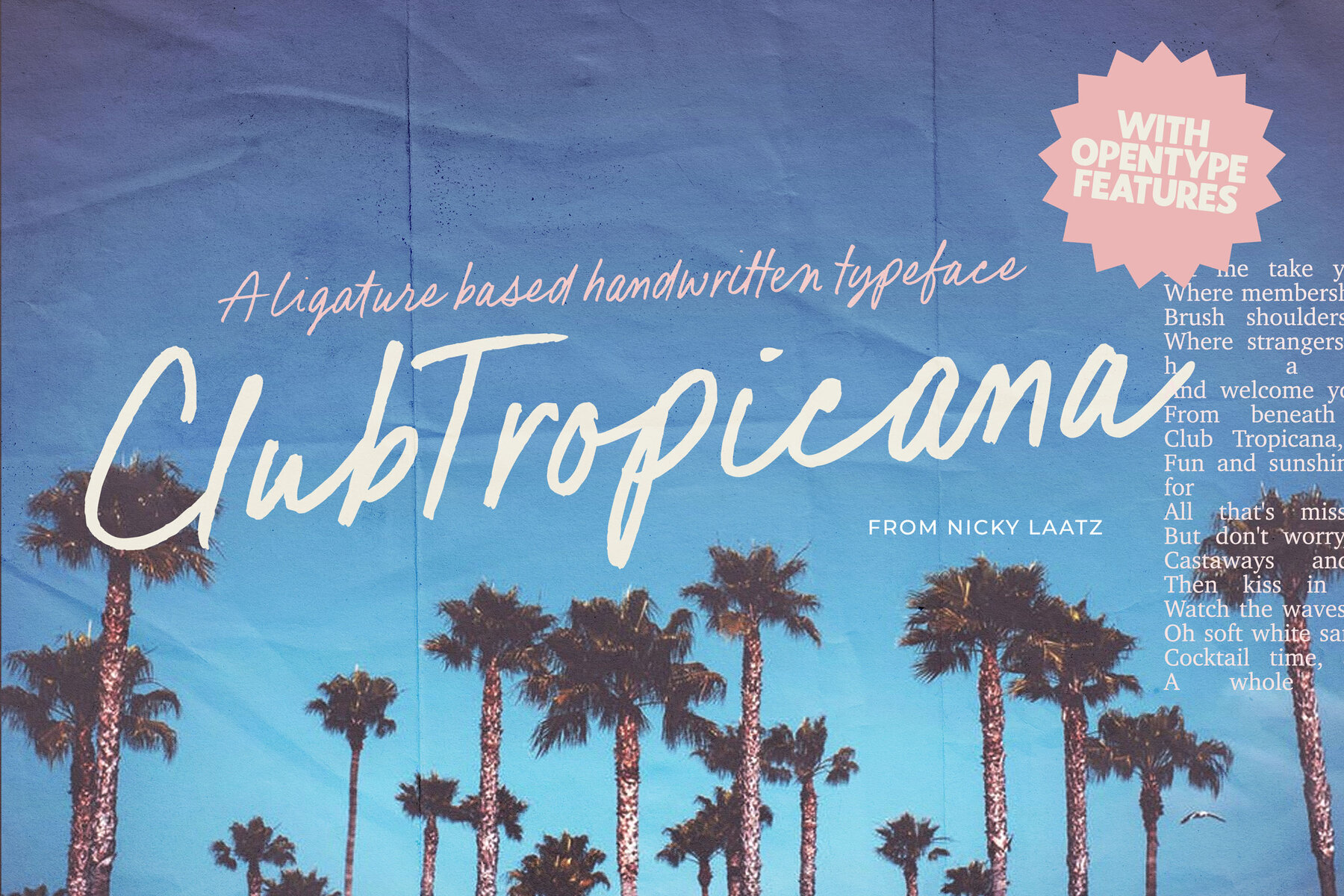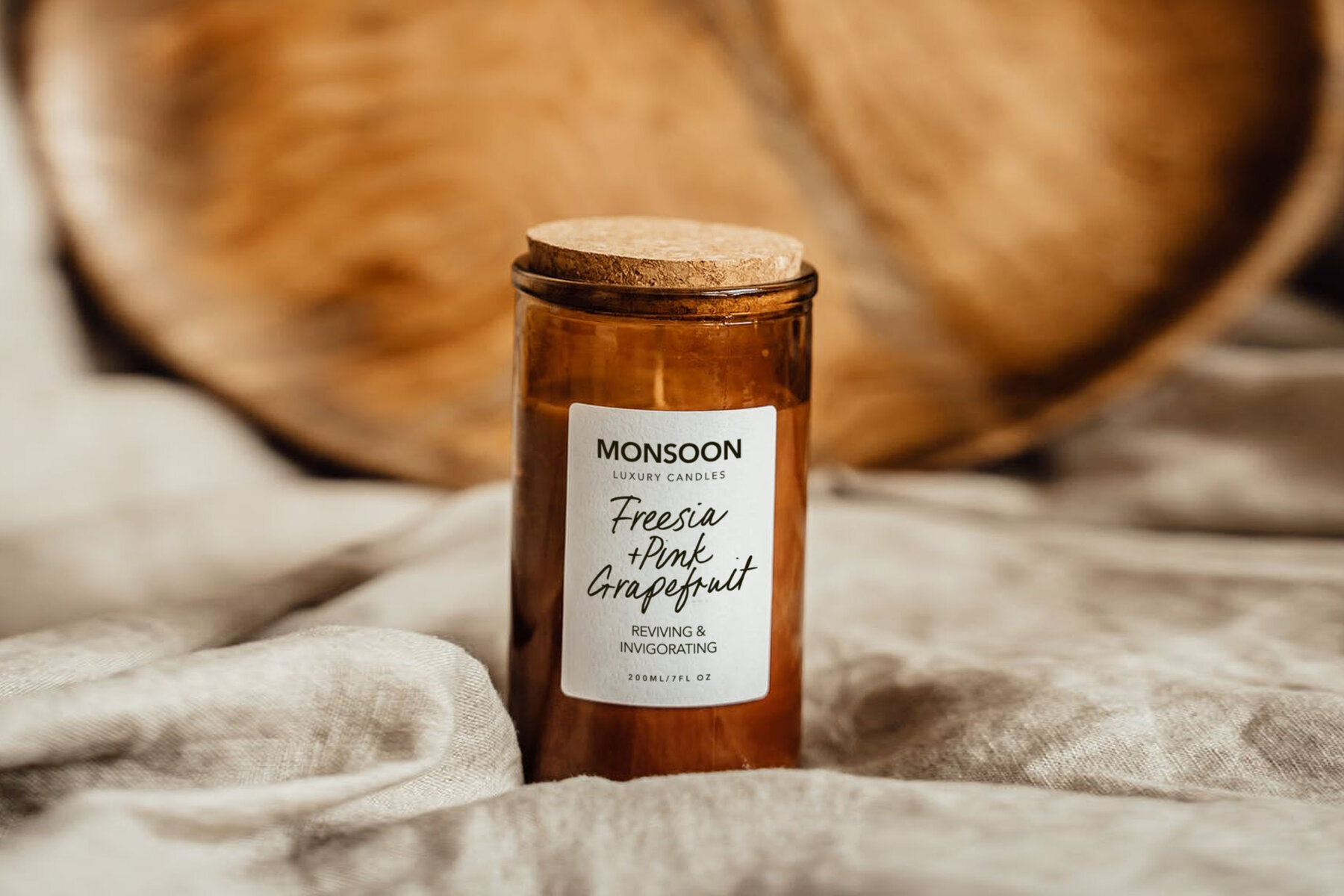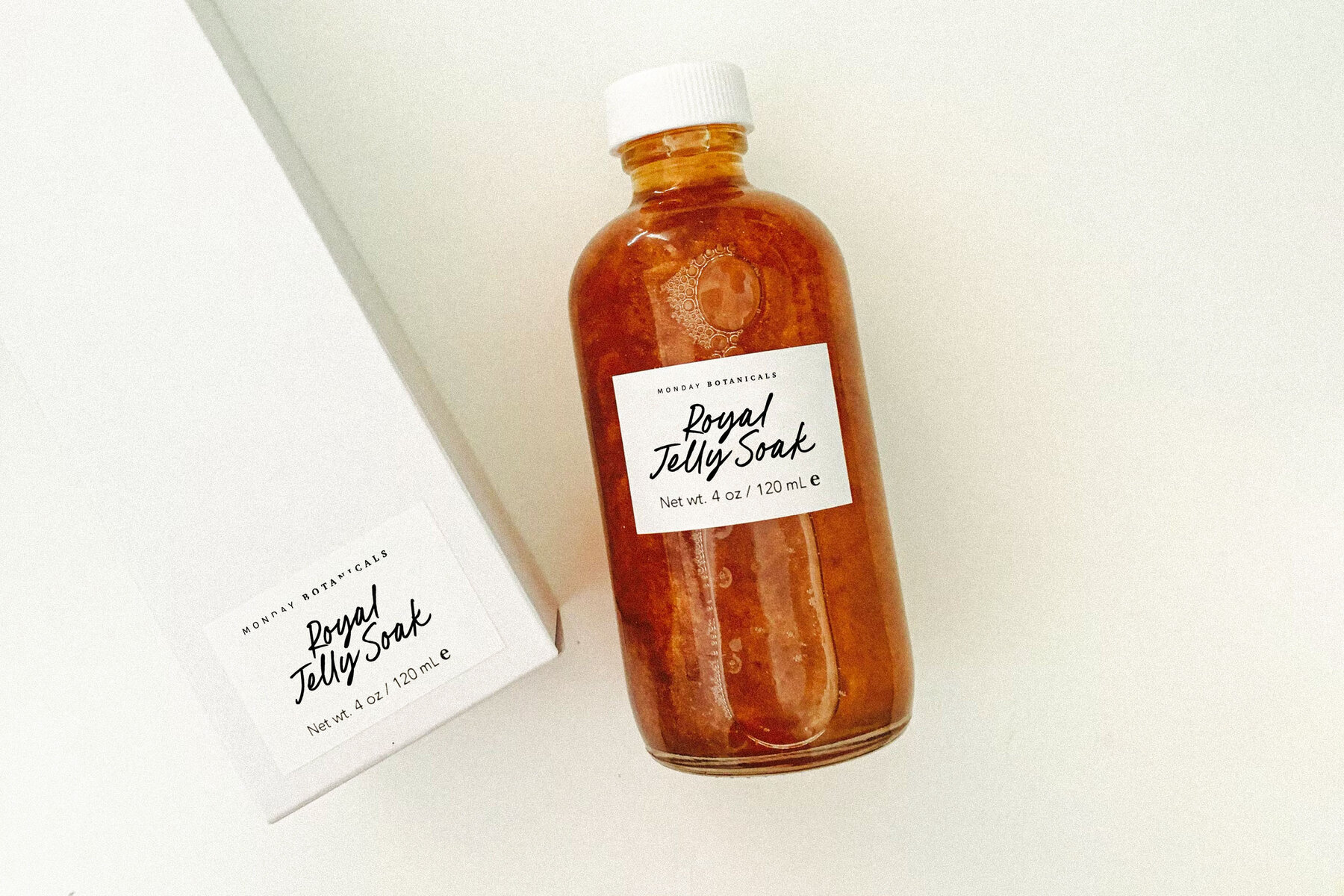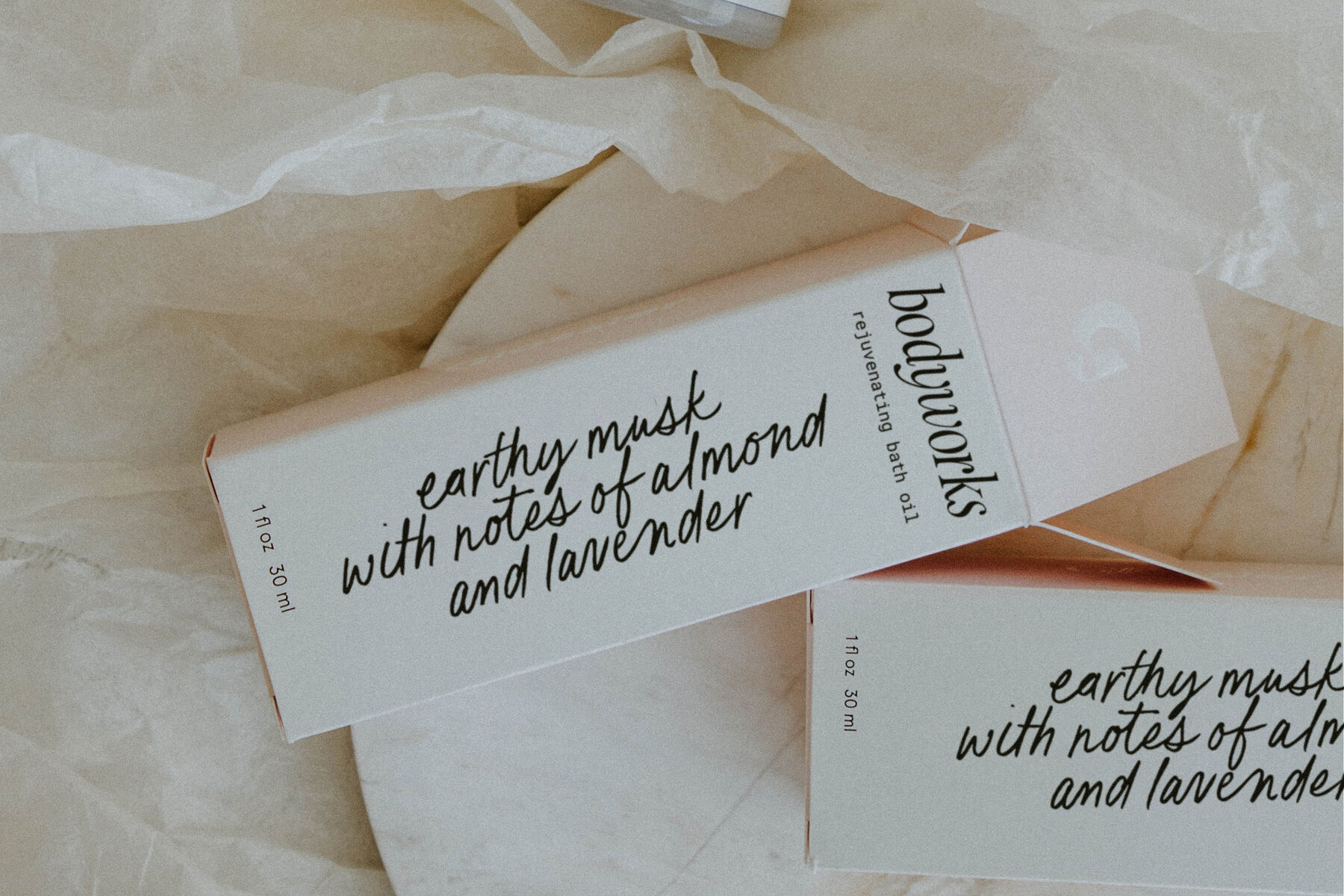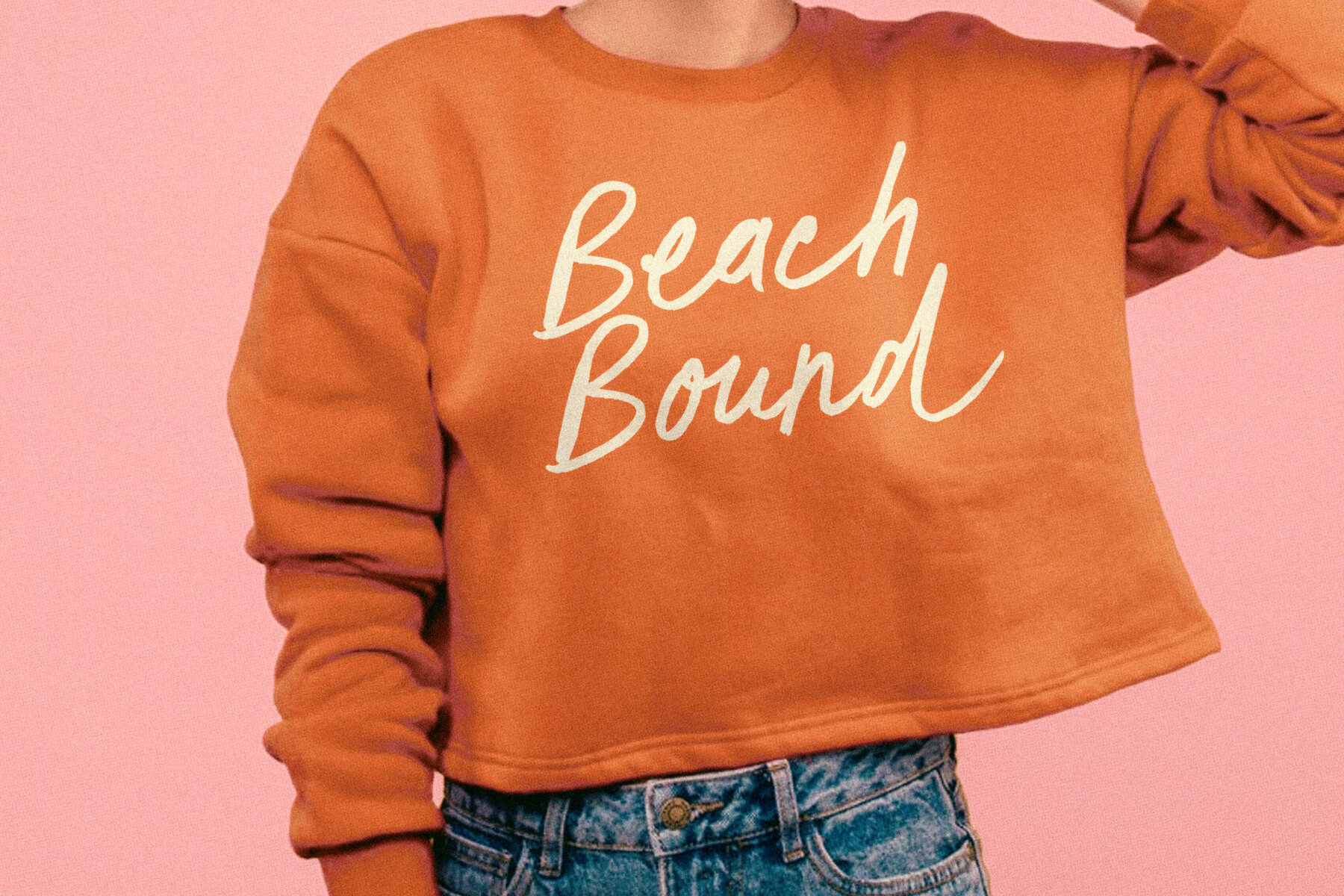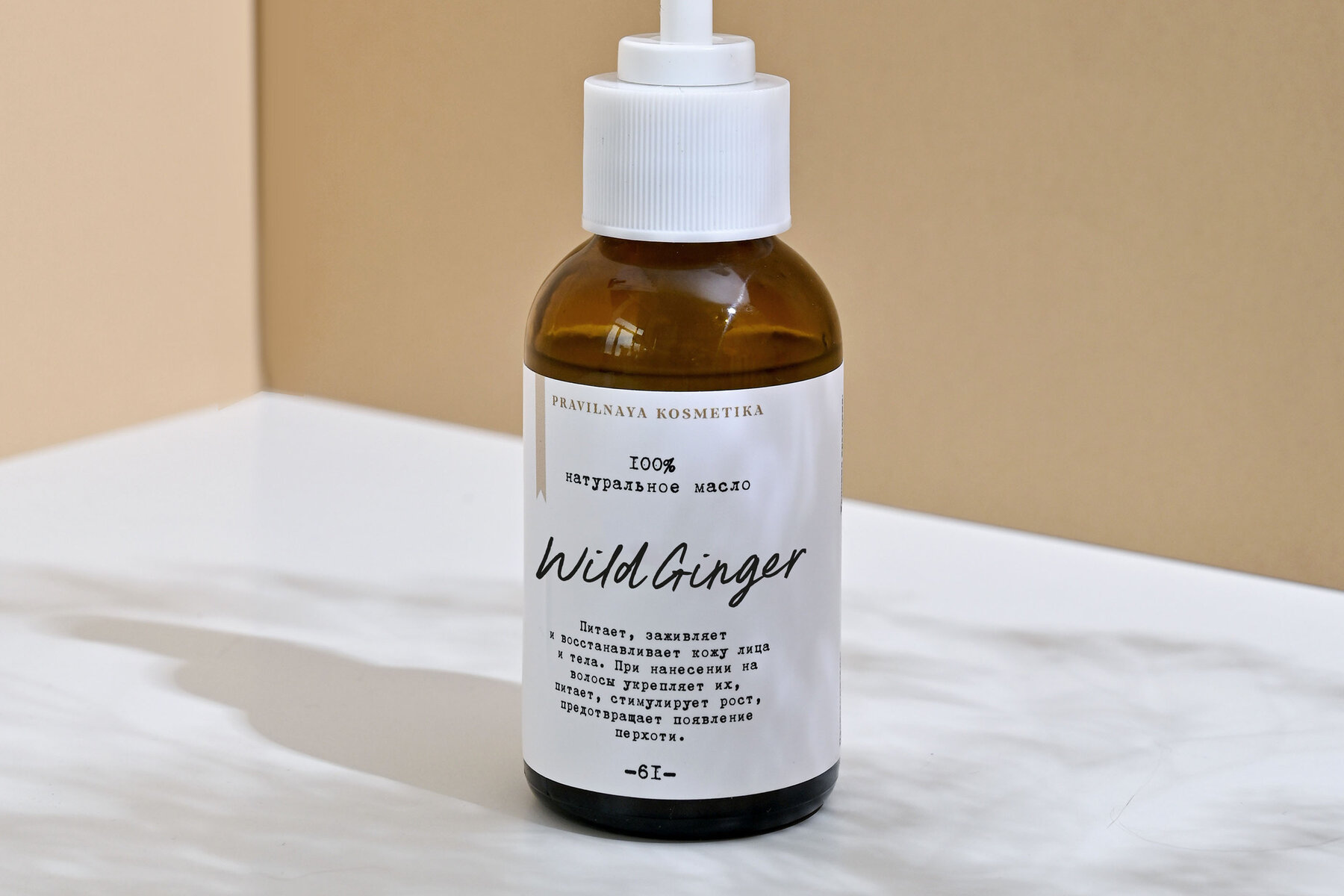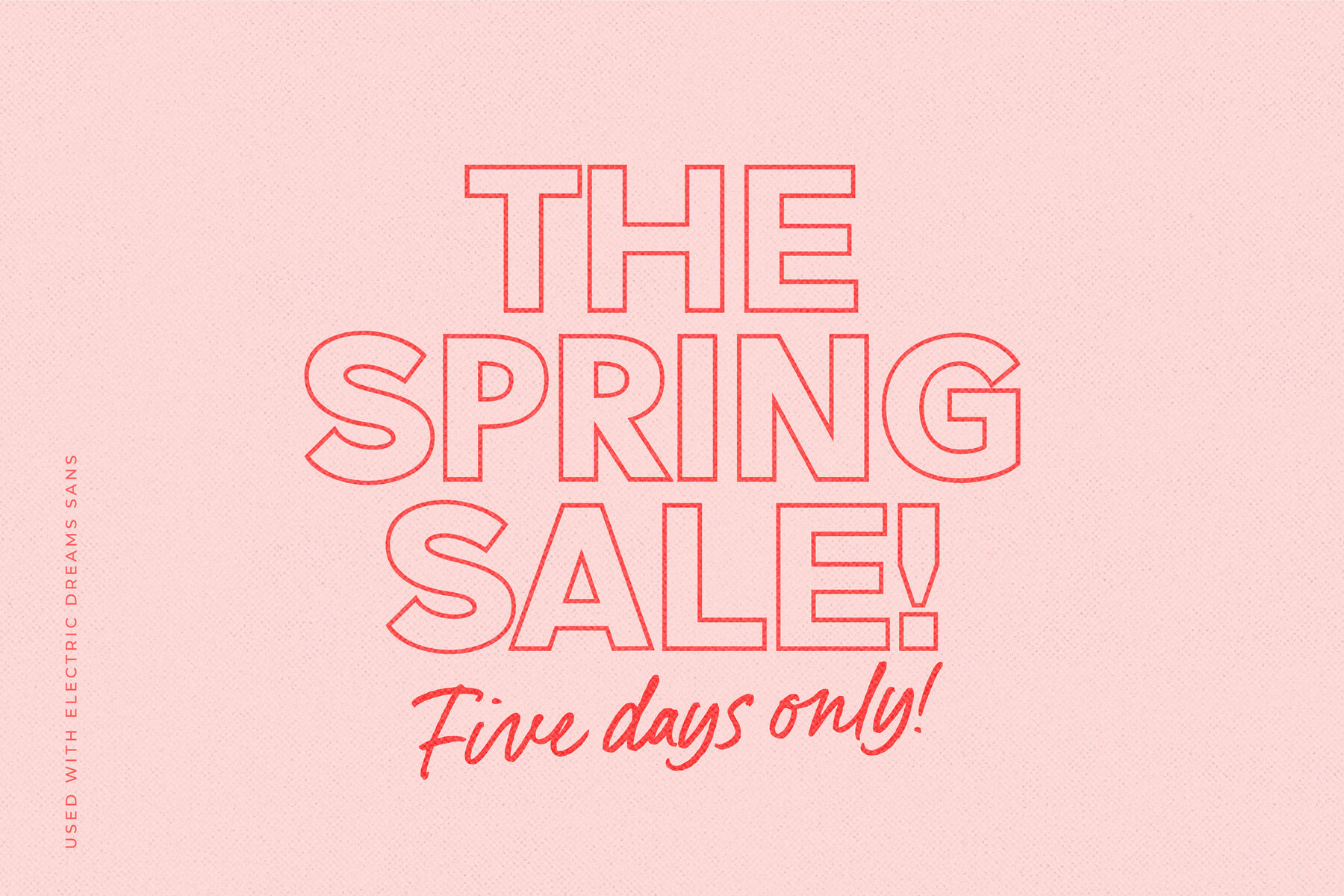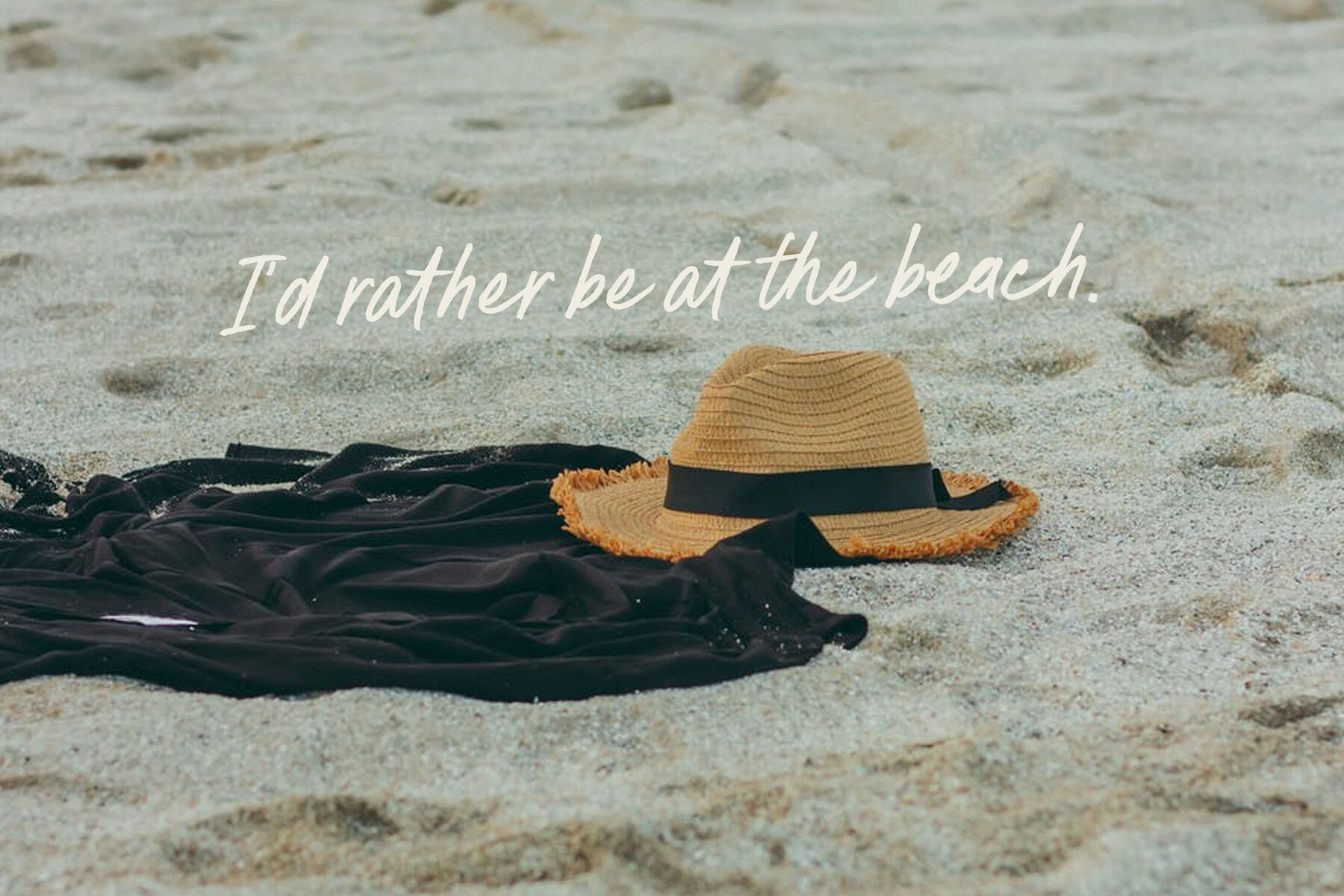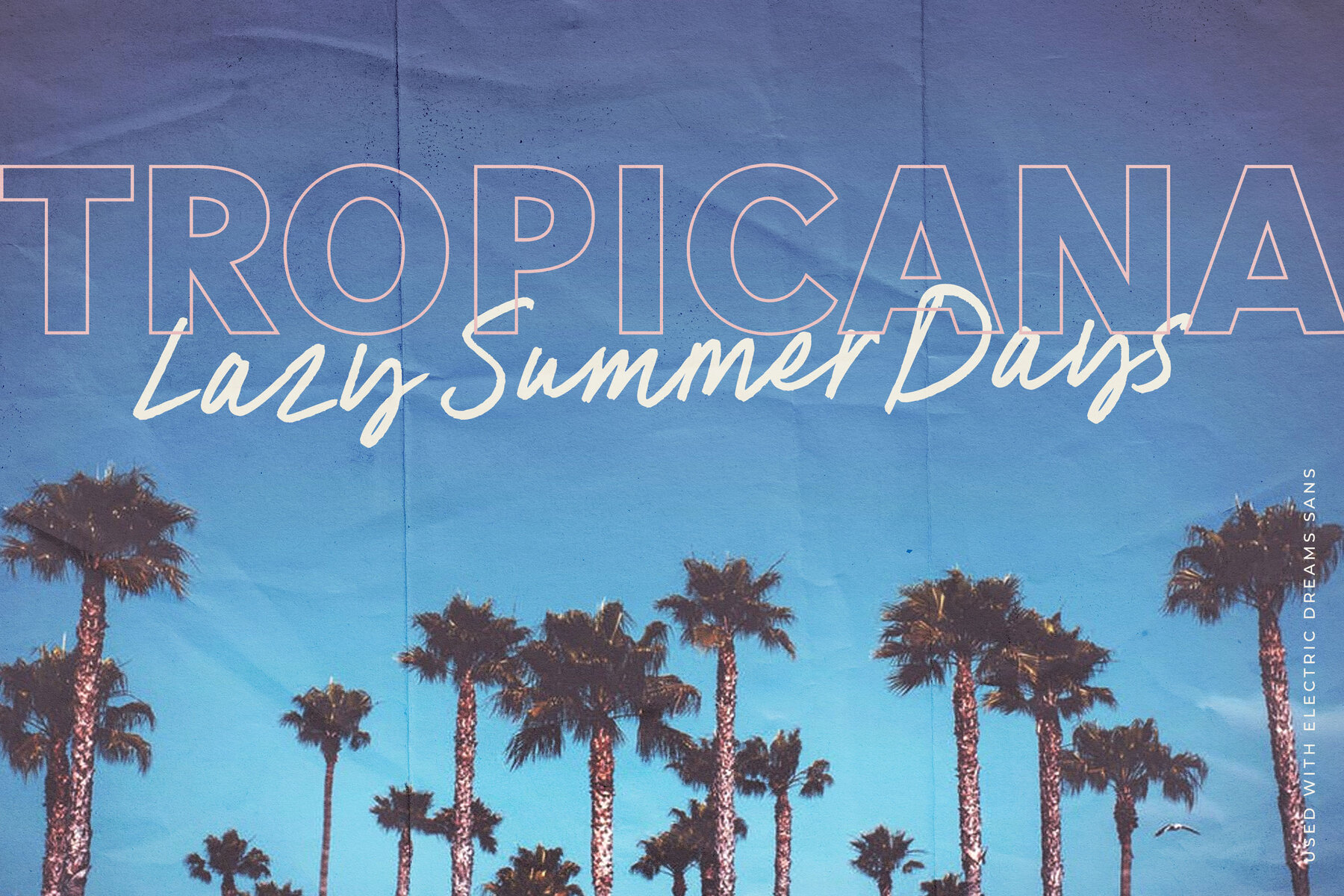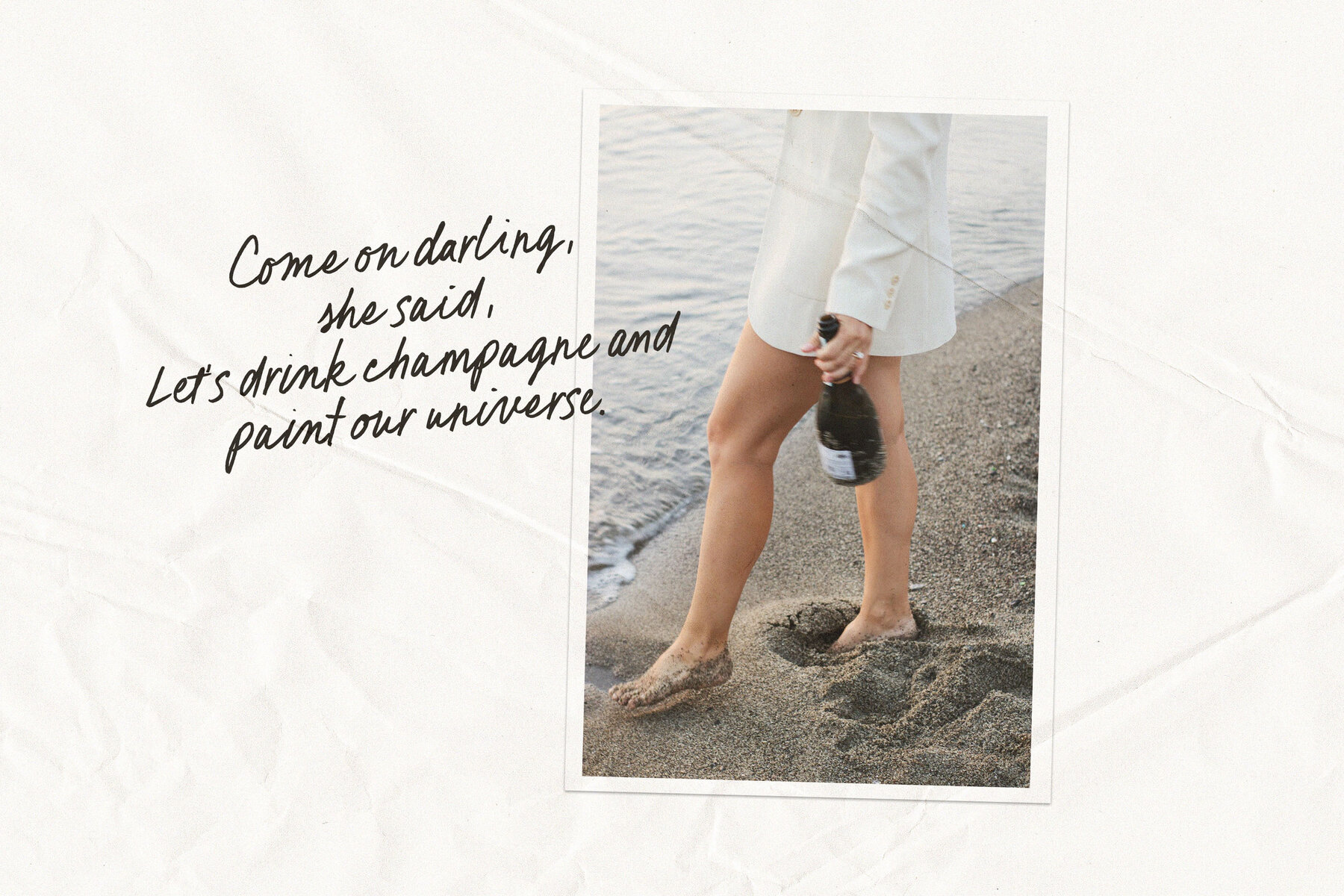
Club Tropicana! Font
Discover the charm and allure of Club Tropicana, an exceptional handwriting script font that masterfully marries style with functionality. Designed by the talented Nicky Laatz, this one-of-a-kind typeface stands apart in the busy world of graphic design and offers an aesthetic edge to creative teams at marketing firms and beyond. Club Tropicana is far from typical: it encapsulates all the spontaneity and dynamism inherent in human handwriting, all while maintaining a professional standard. Featuring an array of 105 extra Opentype ligatures and alternatives, it contributes a touch of personal flair to any project. The font’s inherent inky and imperfect style echo the beauty of original, unedited thought, giving a nod to the eclectic and unpredictable. Key Features:Club Tropicana: Redefining Design Excellence